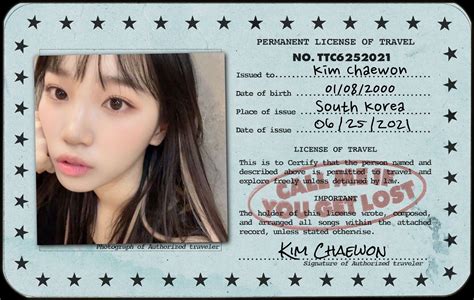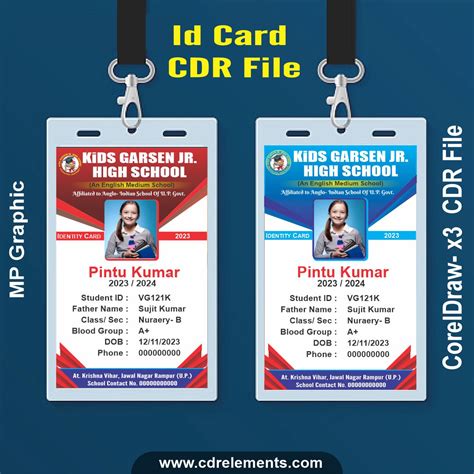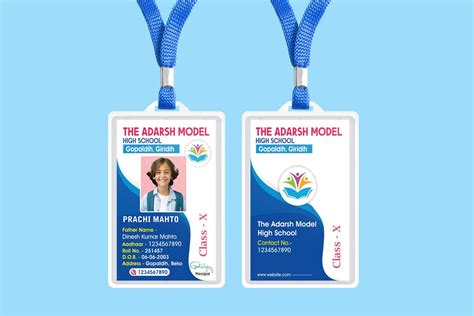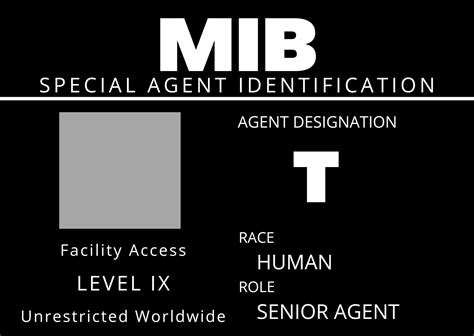
Choosing the perfect fount for ID card designs is a critical decision that equilibrate aesthetic appeal with immediate legibility. Whether you are project embodied badges, student IDs, or case access passing, the typography you select conveys professionalism and dictates how cursorily a protection officeholder or reader can verify the info displayed. A well-chosen face ascertain that critical details like name, title, and singular identification numbers continue open under several lighting weather and viewing distances. Poor case choices, conversely, can direct to littered design or misinterpreted datum, potentially compromising the protection and functionality of the card itself.
The Impact of Typography on Professional Identity
When you sit down to create a professional designation papers, it is easy to get lose in complex graphics or vivacious colour schemes. Yet, at the nucleus of every functional card is text. The best fonts for ID cards are those that prioritise readability and versatility. In a professional setting, serif fonts might convey authority and tradition, while sans-serif fonts often signal a modern, tech-forward, or efficient organizational acculturation. The key is to gibe the typeface personality with the entity's brand identity while adhering to strict measure for size and spacing.
Key Considerations for Font Selection
- Legibility at Small Sizes: Most ID cards are credit-card sized. Your elect typeface must stay clear yet at 6pt or 8pt.
- Weight and Contrast: Avoid ultra-light fonts that vanish when publish on plastic or PVC substrate.
- Character Differentiation: Ensure that number like "1" and "7" or missive like "O" and "Q" are distinct to forestall identification fault.
- Spacing (Kerning): Tight kerning can induce character to phlebotomize together during the printing process.
Recommended Font Styles for Different ID Categories
The type of card dictates the font fashion. A high-security entree badge require a very different attack than a everyday voluntary laniard. Generally, unclouded sans-serif face are the gold touchstone because they miss decorative flourishes that can confuse during high-speed printing or scanning.
| Card Category | Recommended Font Style | Best Usage |
|---|---|---|
| Corporate Badge | Clean Sans-Serif | Gens and Job Title |
| Security Clearance | Monospaced | Serial Numbers/IDs |
| Student/Event ID | Labialize Sans-Serif | Friendly, clear info |
Best Practices for Layout and Visual Hierarchy
Erstwhile you have choose your baptistery for ID card pattern, you must establish a clear optic hierarchy. Your layout should guide the eye from the most important info to the least significant. Typically, the cardholder's gens should be the most spectacular component, follow by the job title or section. The ID number, which is much utilise for barcode scanning, should be set in a region that obviate ocular interference from images or logo.
Designing for Scannability
If your card utilise QR codification or barcodes, be cautious about overlapping schoolbook. Preserve a "quiet zone" around scannable factor. Moreover, if you are using a usance font, check it is embedded in your design file before sending it to the pressman to avert substitution errors that could modify the layout circumstantially.
Successfully designing identification documents affect a deliberate mix of artistic choice and functional necessity. By take a open, legible typeface and maintaining a coherent visual hierarchy, you control that every card serves its intended purpose without confusion or mistake. Remember that the ultimate destination is to alleviate quick acknowledgement and information verification. Keeping your composition clear and your layout organized will consistently result in professional and effective designation solution for any surroundings.